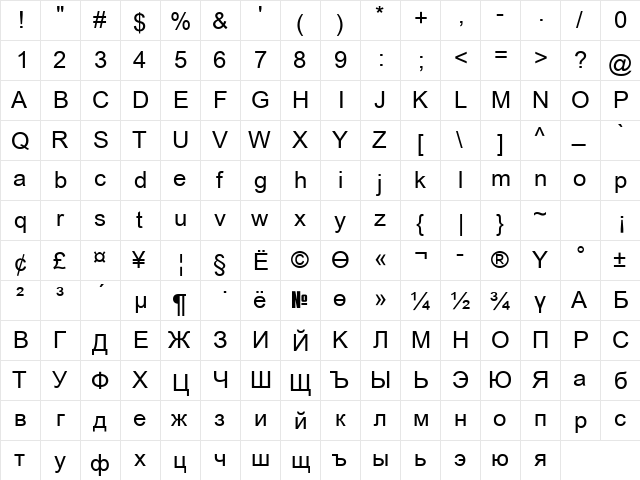
SUNA Arial Regular
Design Context for SUNA Arial Typeface
SUNA Arial is a composed and adaptable typeface that performs quietly and consistently across a wide range of design contexts.